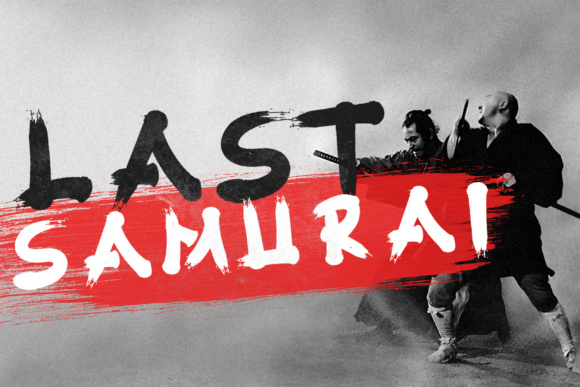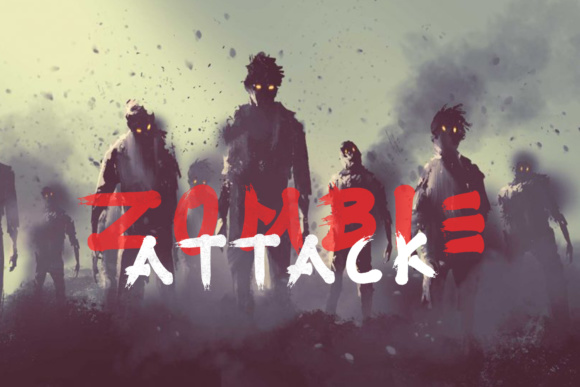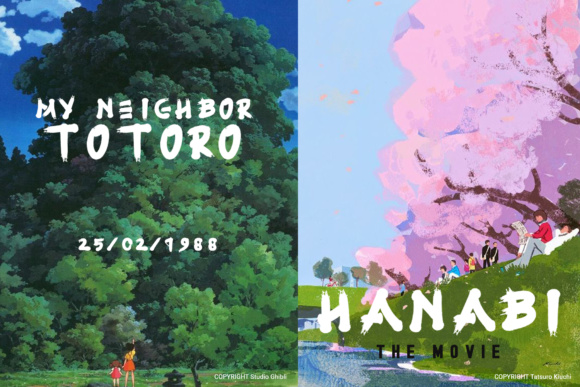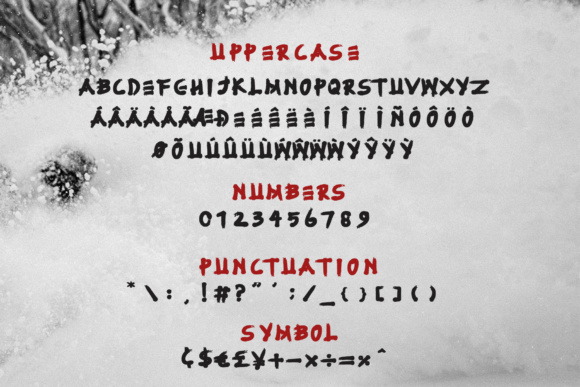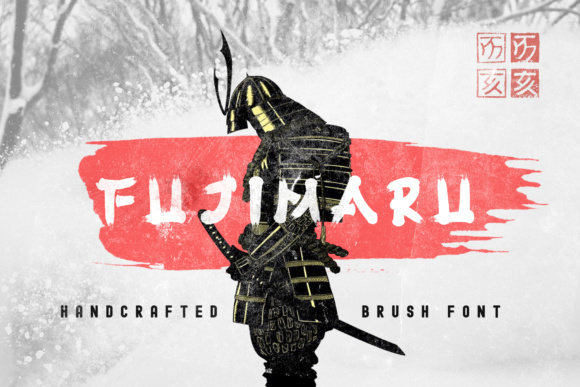
Fujimaru Font: A Stunning Display Font for Your Creative Projects
Are you a designer or crafter looking for a unique and eye-catching font to elevate your projects? Look no further than Fujimaru Font, a stunning display font inspired by East Asian poster designs and typography. With its gorgeous dry brush stroke look, Fujimaru is perfect for a wide range of thematic projects, from bold headings to creative crafts.
What is Fujimaru Font?
Fujimaru Font is a display font that boasts a distinctive dry brush stroke aesthetic, reminiscent of traditional East Asian poster designs. The font’s unique look is characterized by its rough, textured strokes and subtle imperfections, giving it a hand-crafted feel that’s perfect for adding a touch of personality to your projects.
Inspiration from East Asian Typography
Fujimaru Font draws inspiration from the bold and vibrant typography of East Asia, where traditional brush calligraphy and poster designs have long been an integral part of the cultural heritage. The font’s creator has skillfully captured the essence of this unique typographic style, translating it into a digital font that’s both authentic and modern.
Key Features of Fujimaru Font
So, what makes Fujimaru Font so special? Here are some of its key features:
- Dry Brush Stroke Look: Fujimaru’s distinctive dry brush stroke aesthetic gives it a unique, hand-crafted feel that’s perfect for adding texture and personality to your projects.
- East Asian-Inspired Typography: The font’s inspiration from traditional East Asian poster designs and typography gives it a bold and vibrant feel that’s sure to turn heads.
- Versatile and Flexible: Fujimaru Font is perfect for a wide range of projects, from bold headings and titles to creative crafts and DIY projects.
Use Cases for Fujimaru Font
So, what kinds of projects is Fujimaru Font perfect for? Here are some ideas to get you started:
- Posters and Flyers: Use Fujimaru Font to create eye-catching posters and flyers that showcase your brand or event.
- Logos and Branding: Add a touch of personality to your logo or branding with Fujimaru’s unique dry brush stroke look.
- Crafts and DIY Projects: Fujimaru Font is perfect for crafty projects like handmade cards, gift tags, and other DIY creations.
- Web Design: Use Fujimaru Font to add a bold and vibrant touch to your website’s headings and titles.
Tips for Using Fujimaru Font
Here are some tips for getting the most out of Fujimaru Font:
- Experiment with Font Sizes: Fujimaru Font looks great at a range of font sizes, from bold headings to smaller body text.
- Play with Color: The font’s dry brush stroke look looks great in a range of colors, from bold and bright to subtle and muted.
- Mix and Match with Other Fonts: Fujimaru Font pairs well with a range of other fonts, so don’t be afraid to experiment with different combinations.
In conclusion, Fujimaru Font is a stunning display font that’s perfect for designers and crafters looking to add a touch of personality to their projects. With its unique dry brush stroke look and East Asian-inspired typography, Fujimaru is sure to turn heads. Whether you’re working on a bold poster, a creative craft project, or a website design, Fujimaru Font is a versatile and flexible choice that’s sure to impress.